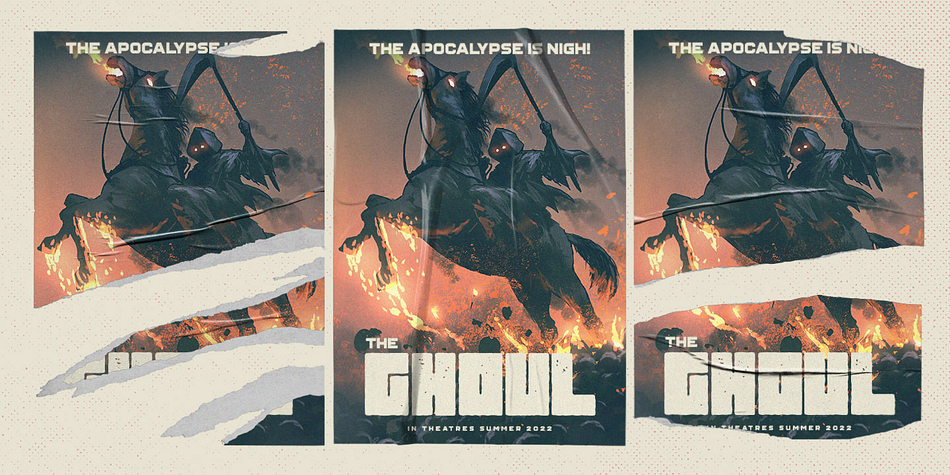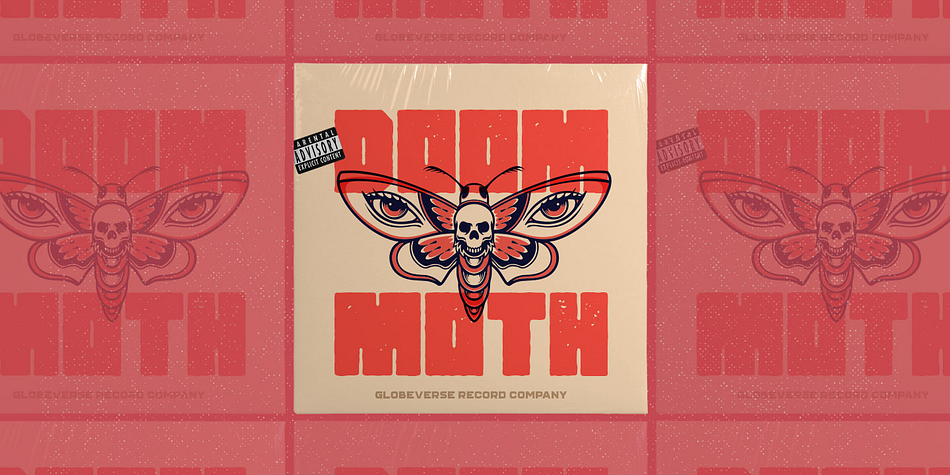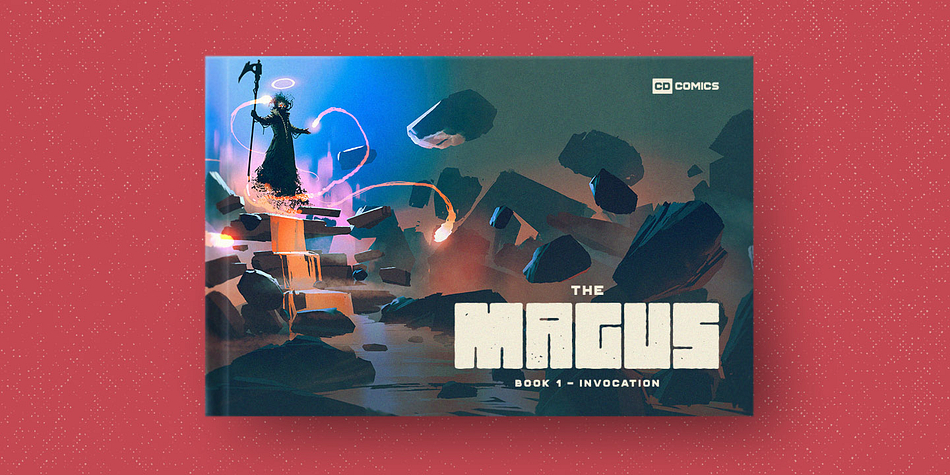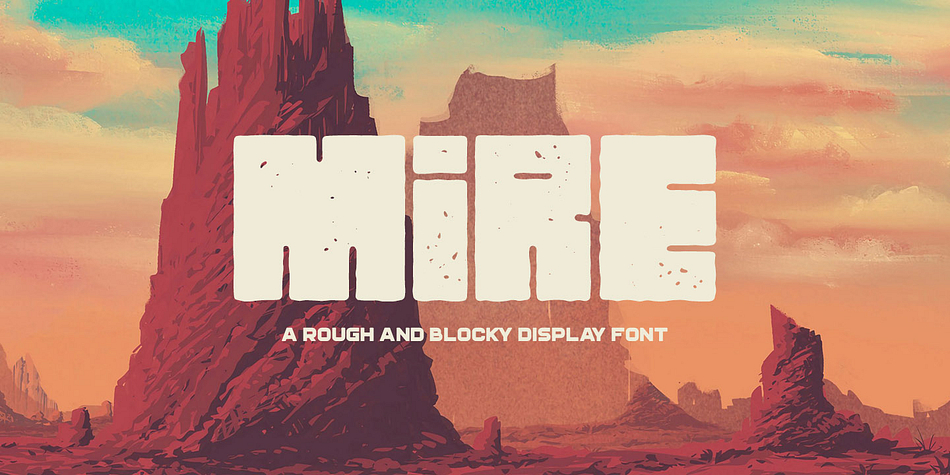
Mire is a display, display sans and hand display font family. This typeface has two styles and was published by Tugcu Design Co.
Mire is a big bold blocky font full of textures.